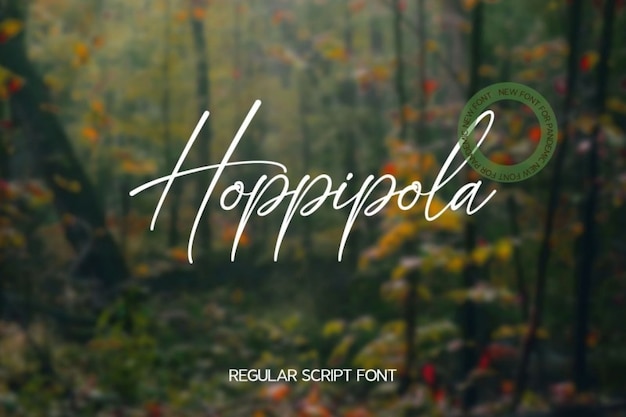
Hoppipola Font
It is like a walk through a tranquil meadow. This calligraphy-inspired font combines the grace of handwritten script with the beauty of nature. Its organic, flowing lines feel as if they were penned by the hand of Mother Nature herself. Each character dances across the page like a blade of grass swaying in the breeze. Whether you're designing invitations, branding, or anything in between, "Hoppipola" brings a touch of natural elegance to your work, evoking a sense of serenity and beauty in every stroke.